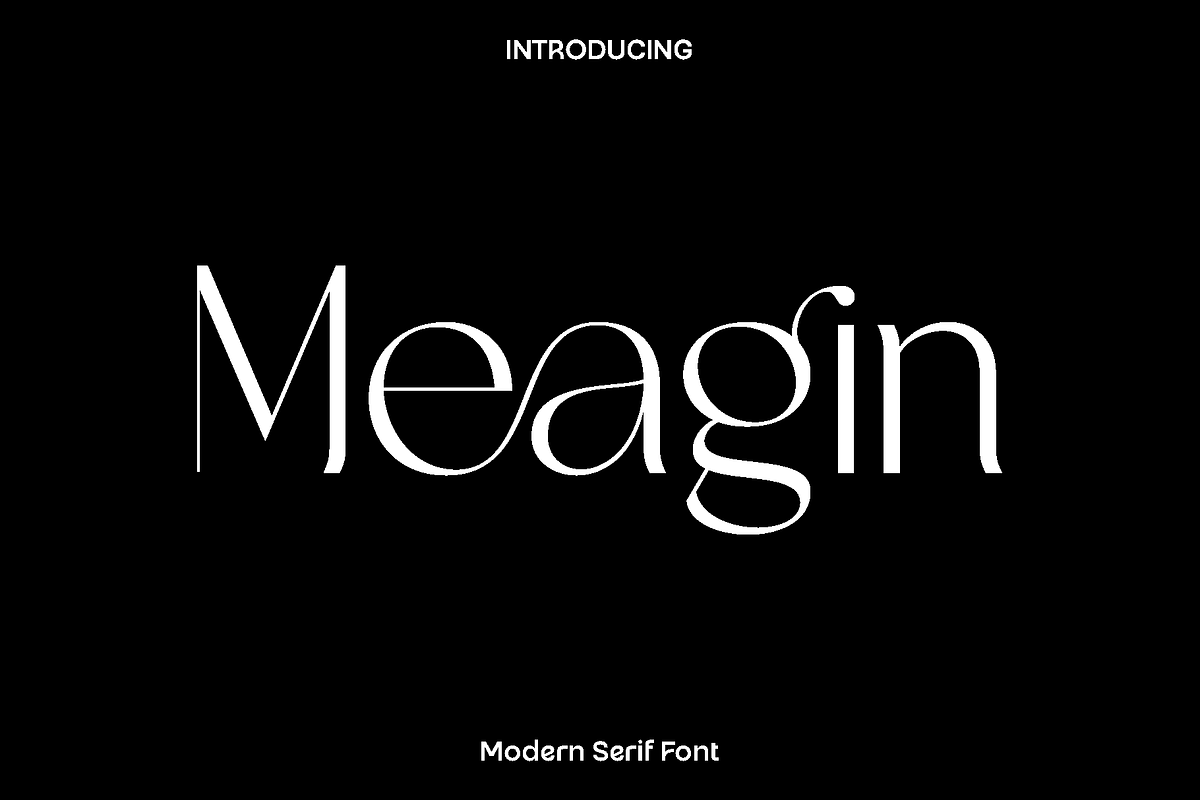
Meagin Elegant Serif
Meagin is a serif display font created to express classic beauty, soft femininity, and refined elegance. Inspired by timeless editorial typography and graceful design details, Meagin features beautifully shaped letterforms enhanced with stylish alternates that add charm and personality. Every character is carefully crafted to feel smooth, romantic, and visually balanced, making this font ideal for designs that require emotion, elegance, and sophistication.
Meagin shines in projects where beauty and detail matter most. It is perfectly suited for logos and branding, wedding invitations, stationery, luxury packaging, labels, photography watermarks, social media content, and elegant advertisements. The delicate yet confident presence of Meagin allows it to stand out in headlines while remaining graceful in longer text or decorative compositions.
This font feels warm, timeless, and expressive. Its alternate stylist characters give designers creative freedom to craft unique wordmarks and memorable layouts. Whether used in print or digital designs, Meagin elevates every project with a polished and feminine touch that feels both classic and modern.
Meagin Serif Display Font Features:
• Elegant serif display characters
• Beautiful alternate stylist characters
• Uppercase and lowercase
• OpenType features
Meagin is the perfect choice for designers seeking a font that combines elegance, romance, and versatility, turning every design into a refined visual statement.